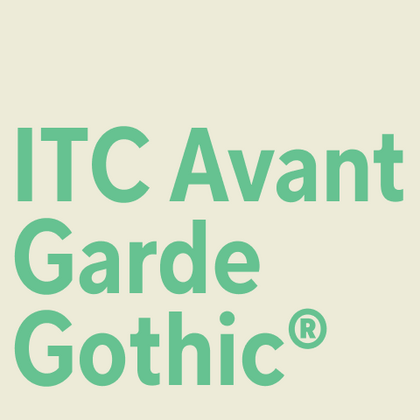
Fonts similar to ITC Avant Garde Gothic
If you require an expressive geometric sans serif with character, like ITC Avant Garde Gothic®, TypeType’s alternative fonts are an ideal fit. They preserve the design’s energy while bringing individuality to your project. Fonts with bold forms and an avant-garde spirit are perfect for creative branding, fashion publications, and art projects where both expressiveness and practicality matter. Every letter in our fonts is thoughtfully designed for a harmonious blend of style and usability.
If you are tired of overused typefaces and are looking for fonts similar to ITC Avant Garde Gothic, check out our best free-to-try ITC Avant Garde Gothic alternatives, which have similar characteristics as well as new, unique design features. Some of the fonts belong to the same type category, and others are suitable for the same tasks or have similar traits but stand out for their distinct details or proportions.
Find a great ITC Avant Garde Gothic replacement font and try to recreate a similar mood and capture the feeling you aim for by using it in your designs. Each font presented on this page is a twin of the ITC Avant Garde Gothic font, practically identical to it.
TT Polihaus is an experimental sans serif that, at first glance, looks ordinary, but then breaks apart, transforming into a stencil pattern.
TT Modernoir is a display sans serif with dynamic proportions. Fluid lines and delicate Art Nouveau forms in this typeface blend seamlessly with the rhythmic flow and improvisational freedom of jazz.
TT Firs Neue is a contemporary reincarnation of the good old TT Firs sans serif.
TT Octosquares is a fresh, revised, expanded, and significantly improved version of our first commercial font TT Squares & its narrow version.
TT Prosto Sans is a font family for any tasks. You can use this font almost everywhere.